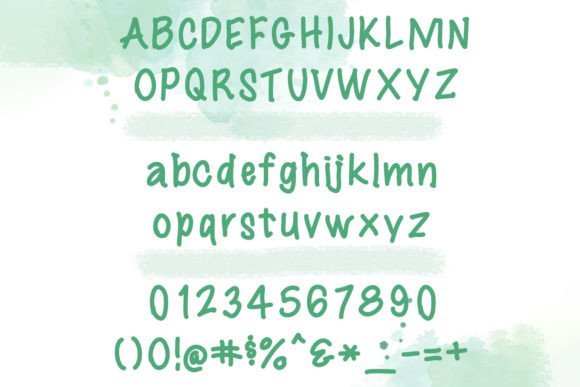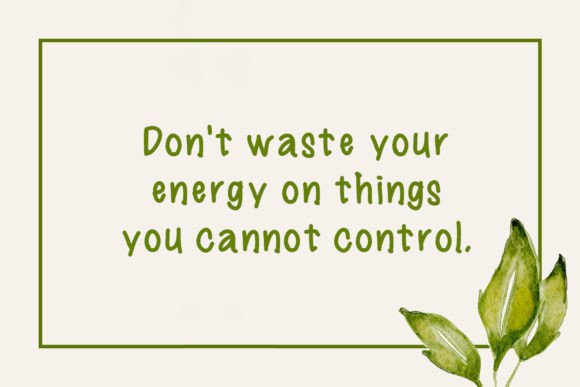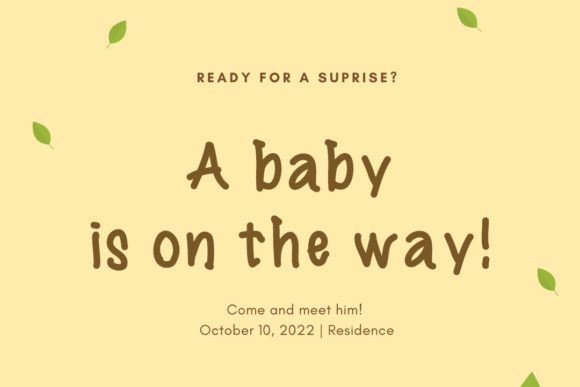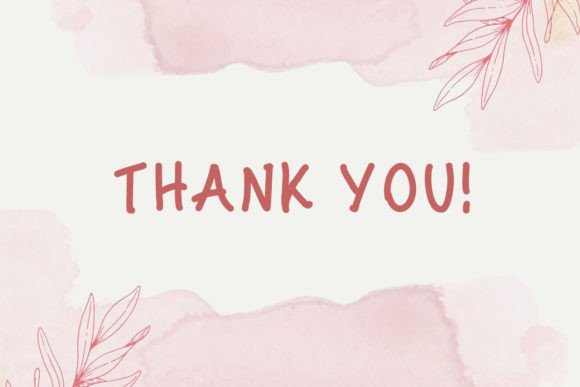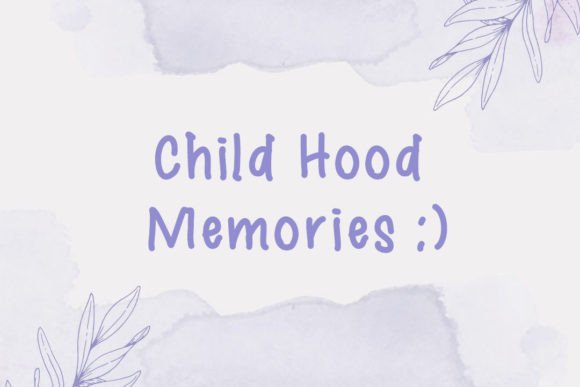
Unlocking the Magic of Childhood: Introducing the Child Hood Memories Font
Childhood memories are a treasure trove of nostalgia, wonder, and enchantment. Who can forget the simplicity and joy of youth, when imagination knew no bounds and creativity was sparked by the smallest things? For designers and crafters, capturing the essence of childhood in their work can be a powerful way to evoke emotions and connect with their audience. That’s where the Child Hood Memories font comes in – a delightful, handwritten font that embodies the whimsy and charm of youth.
A Font that Transports You to a Magical World
Child Hood Memories is a cute and friendly font that boasts a modern yet whimsical style, making it the perfect addition to any design project. Its unique blend of playfulness and sophistication will undoubtedly immerse your designs into a magical world, transporting your audience back to a time of innocence and curiosity. Whether you’re working on a branding project, crafting a social media graphic, or creating a handmade product, this font is sure to add a touch of childhood wonder to your work.
Key Features of the Child Hood Memories Font
- Cute and Friendly Design: The Child Hood Memories font features a charming, handwritten design that’s perfect for projects that require a personal touch.
- Modern yet Whimsical Style: This font seamlessly blends modern sensibilities with a playful, whimsical flair, making it versatile and engaging.
- Easy to Read: Despite its playful nature, the Child Hood Memories font remains highly legible, ensuring that your message is conveyed clearly and effectively.
- Multilingual Support: This font supports multiple languages, making it an excellent choice for designers and crafters working on international projects.
The Child Hood Memories font is an excellent addition to any designer’s or crafter’s toolkit. Its versatility and charm make it suitable for a wide range of projects, including:
- Branding and Packaging: Add a touch of whimsy to your brand’s identity with this delightful font, perfect for packaging, labels, and business cards.
- Social Media Graphics: Create engaging social media content that stands out from the crowd with the Child Hood Memories font.
- Handmade Products: Add a personal touch to your handmade products, such as crafts, jewelry, or textiles, with this charming font.
- Stationery and Invitations: Create beautiful, one-of-a-kind stationery and invitations that are sure to delight.
Tips for Using the Child Hood Memories Font
To get the most out of the Child Hood Memories font, consider the following tips:
- Pair with Contrasting Fonts: Combine the Child Hood Memories font with a contrasting font to create visual interest and hierarchy.
- Experiment with Colors: Play with different color schemes to find the perfect match for your design and the font’s playful personality.
- Don’t be Afraid to Get Creative: The Child Hood Memories font is designed to be versatile, so don’t be afraid to experiment and try new things.
The Child Hood Memories font is a delightful addition to any designer’s or crafter’s toolkit. Its unique blend of whimsy and charm makes it perfect for projects that require a touch of childhood magic. With its modern yet playful style, ease of use, and versatility, this font is sure to inspire creativity and transport your designs to a magical world. So why not give it a try and unlock the magic of childhood in your work?